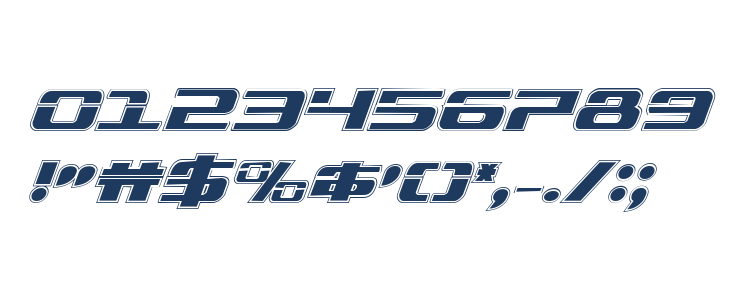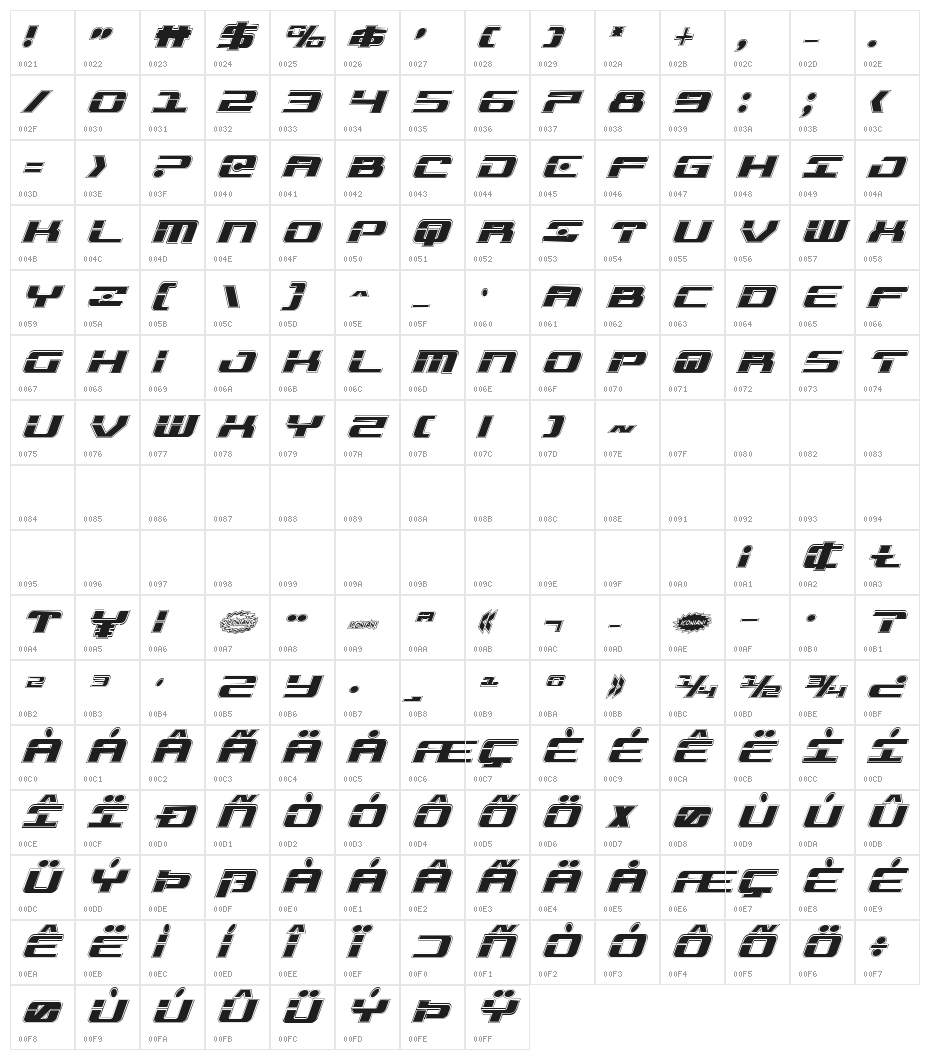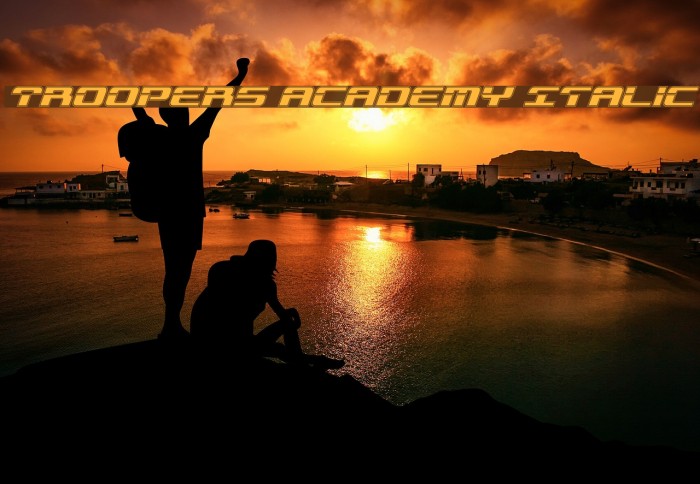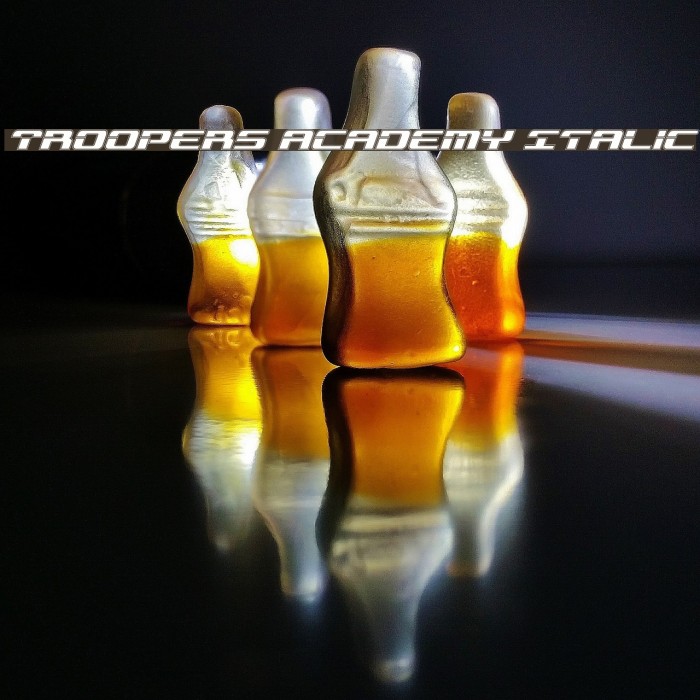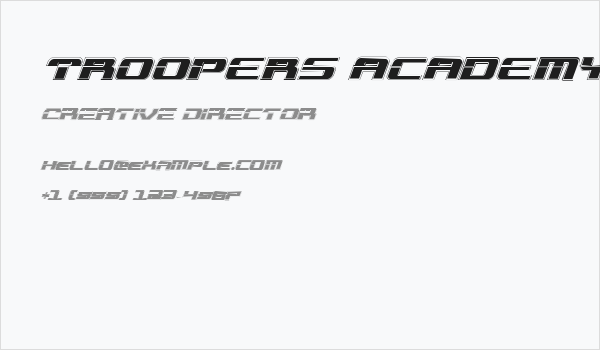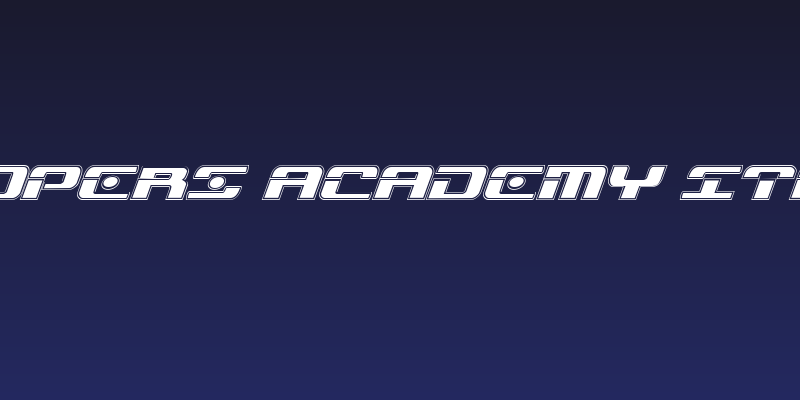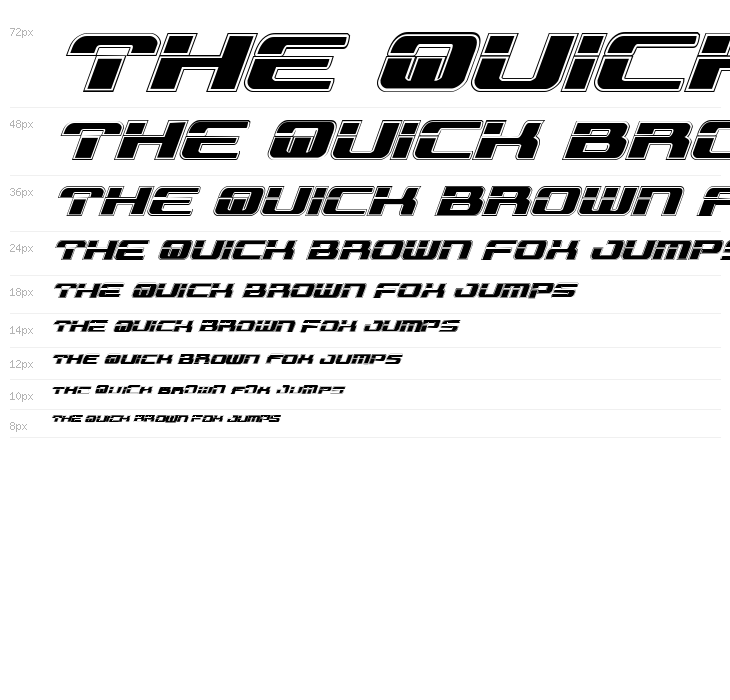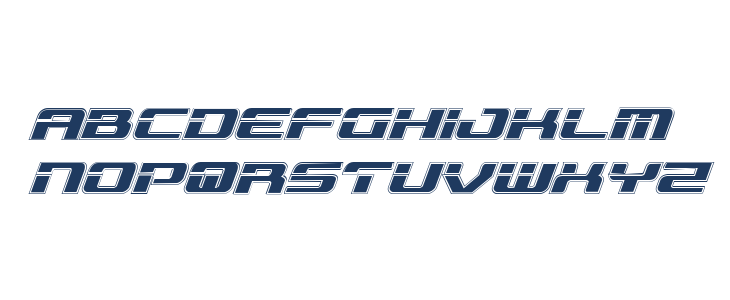
Troopers Academy Italic Font
Troopers Academy Italic Description
This font features a bold, futuristic design with a strong emphasis on geometric shapes and sharp angles. The characters are outlined, creating a three-dimensional effect that adds depth and visual interest. The uppercase and lowercase letters maintain a consistent style, with a slight italic slant that enhances the dynamic appearance. The numerals and special characters follow the same design principles, ensuring uniformity across all glyphs. The font's boldness and unique style make it stand out, suitable for projects that require a modern and edgy look.
| Proposed Projects | Ideal for sci-fi themed designs, video game graphics, posters, and branding that requires a modern, edgy look. |